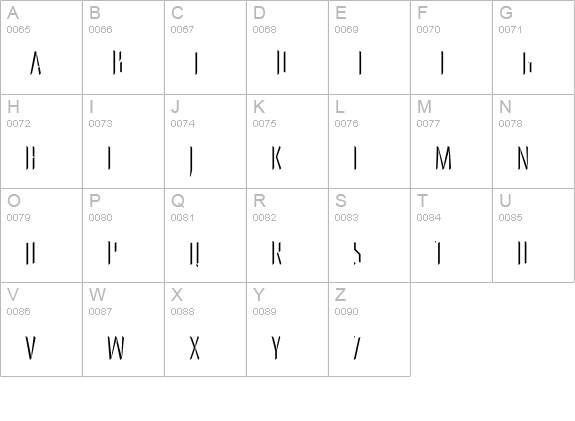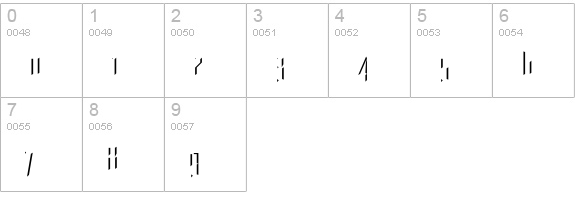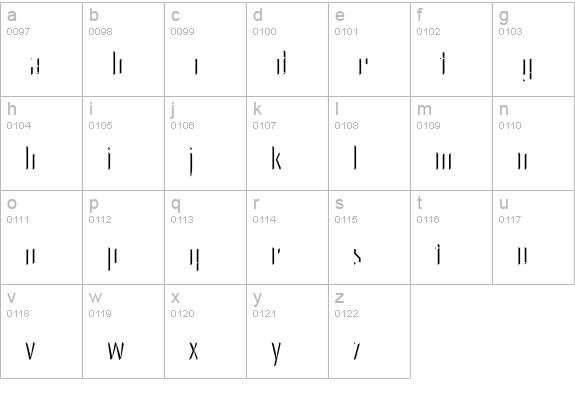
PrimaryStone-Left Font Details
PrimaryStone-Left font is a sleek and modern typeface that exudes sophistication and elegance. With its clean lines and sharp edges, this font is perfect for adding a touch of sophistication to any design project. The PrimaryStone-Left font is versatile and can be used for a variety of purposes, from branding to editorial design. The best part? PrimaryStone-Left font is completely free to download at FontsMarket.com. This means that you can access this stylish font without any cost, making it a valuable addition to your font collection. Whether you're working on a professional project or a personal creative endeavor, PrimaryStone-Left font is sure to elevate your design with its timeless appeal. Download PrimaryStone-Left font today from FontsMarket.com and start incorporating this elegant typeface into your designs for a polished and refined look.